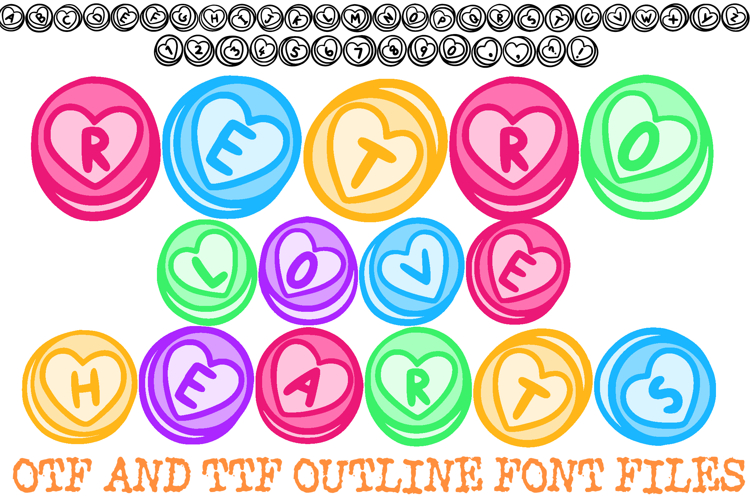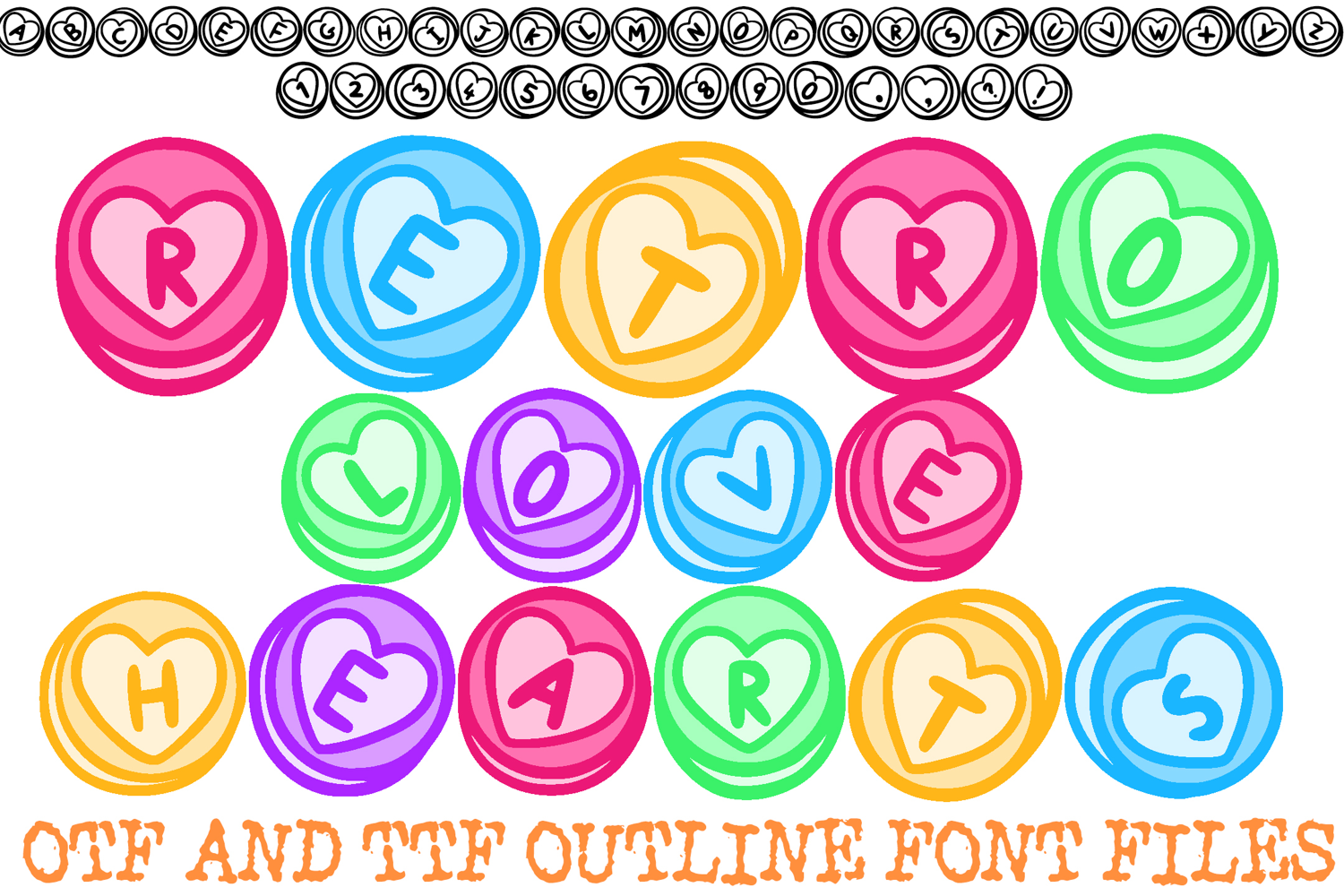
Retro Love Hearts Font Letters Sweets Valentines Typography
Step back into a world of sweetness with the Retro Love Heart Sweets Font! This charming typeface captures the playful spirit of vintage conversation hearts and childhood sweets. Every uppercase letter and number is meticulously designed inside a heart, further encased in a thick-outlined circular candy shape, giving your text a professional, layered look with a hand-drawn feel.
The bold outlines and quirky "doodled" construction make this font perfect for designs that need to stand out with a sense of fun and affection. Whether you're aiming for a Y2K aesthetic or a classic romantic vibe, this font is ideal for adding a personalized, artisanal touch to your holiday projects.
Why Designers Love This Font:
- Unique Candy Layout: Each letter is pre-styled inside a heart and circle, saving you the time of creating complex decorative elements yourself.
- Bold Retro Vibe: The heavy outlines and "button" style work perfectly for high-impact headlines and stickers.
- Hand-Drawn Charm: The organic lines give the font an approachable and whimsical character.
- Craft-Ready Design: The distinct, closed shapes are perfect for vinyl cutting, stickers, and sublimation.
Ideal For:
- Valentine’s Day Branding: Create sweet logos for bakeries, boutique gift shops, or romantic events.
- Stickers & Decals: Perfect for "candy heart" stickers, planner decals, and water bottle branding.
- Apparel Design: Ideal for retro-inspired T-shirts, hoodies, and tote bags for the season of love.
- Social Media & Web: Add a fun, nostalgic headline to Instagram quotes, YouTube thumbnails, and seasonal banners.